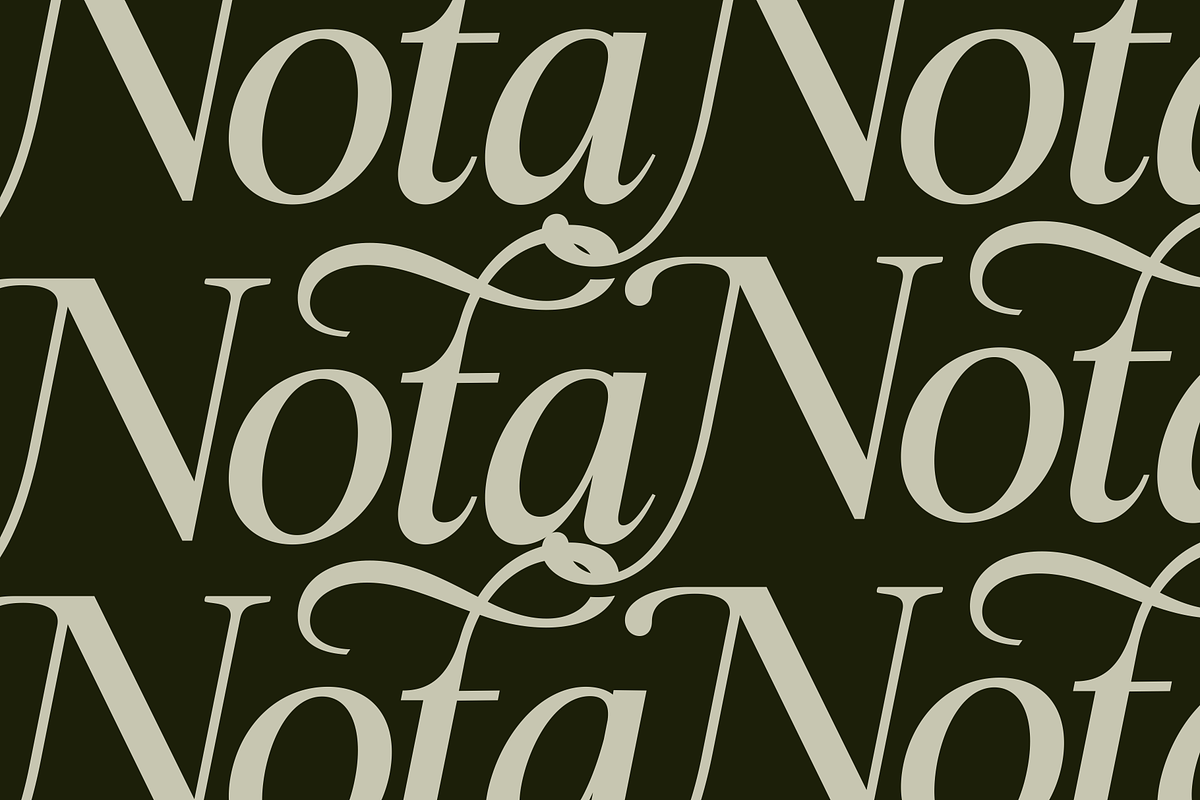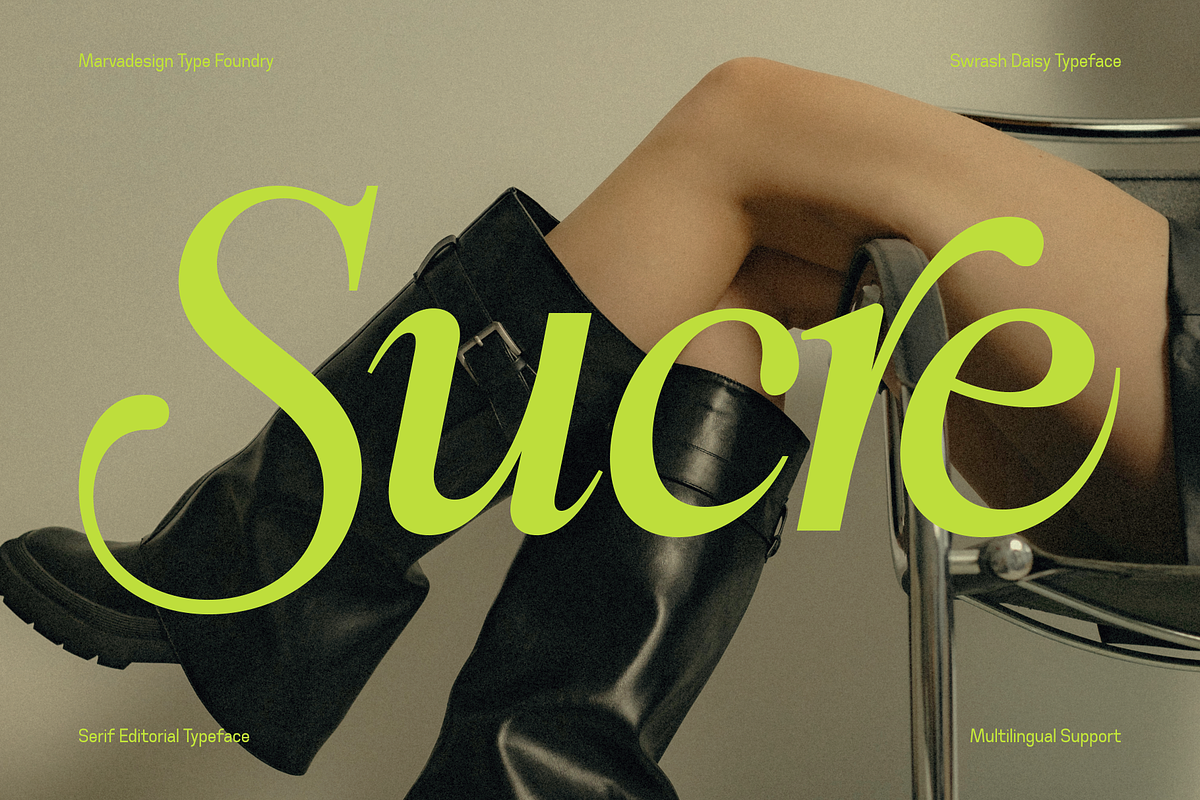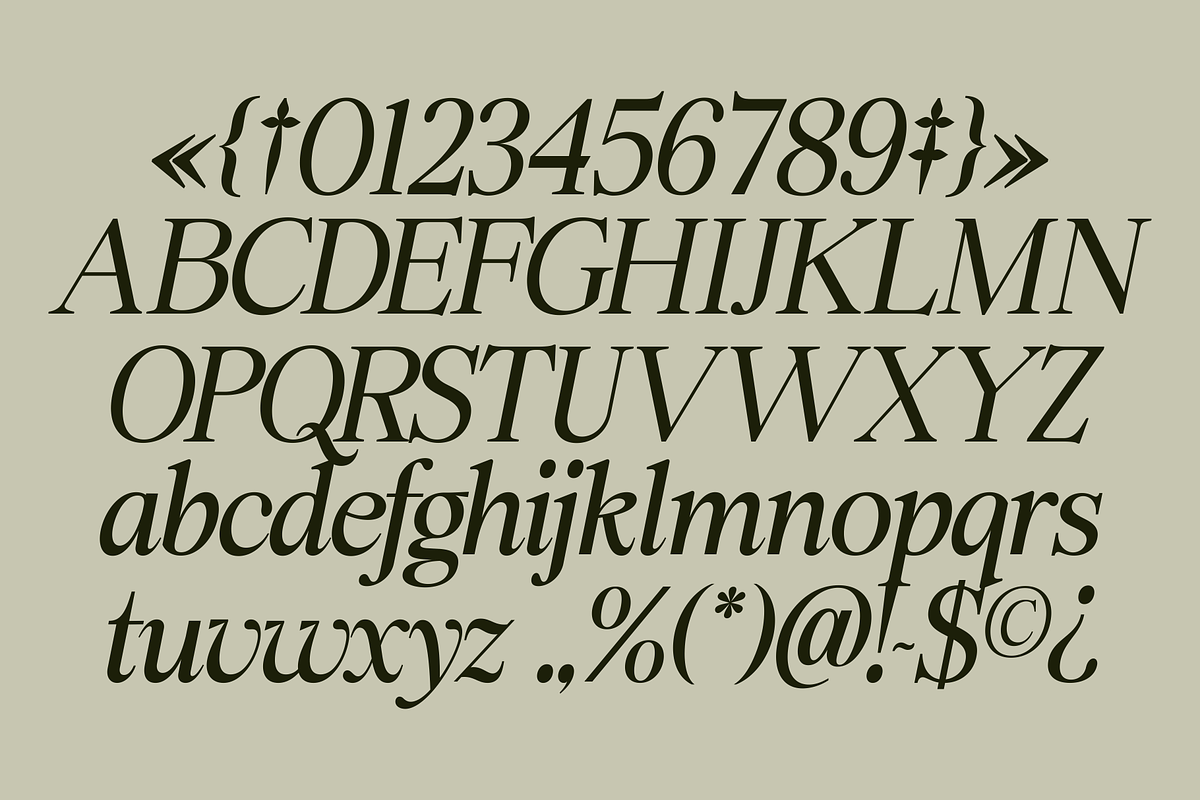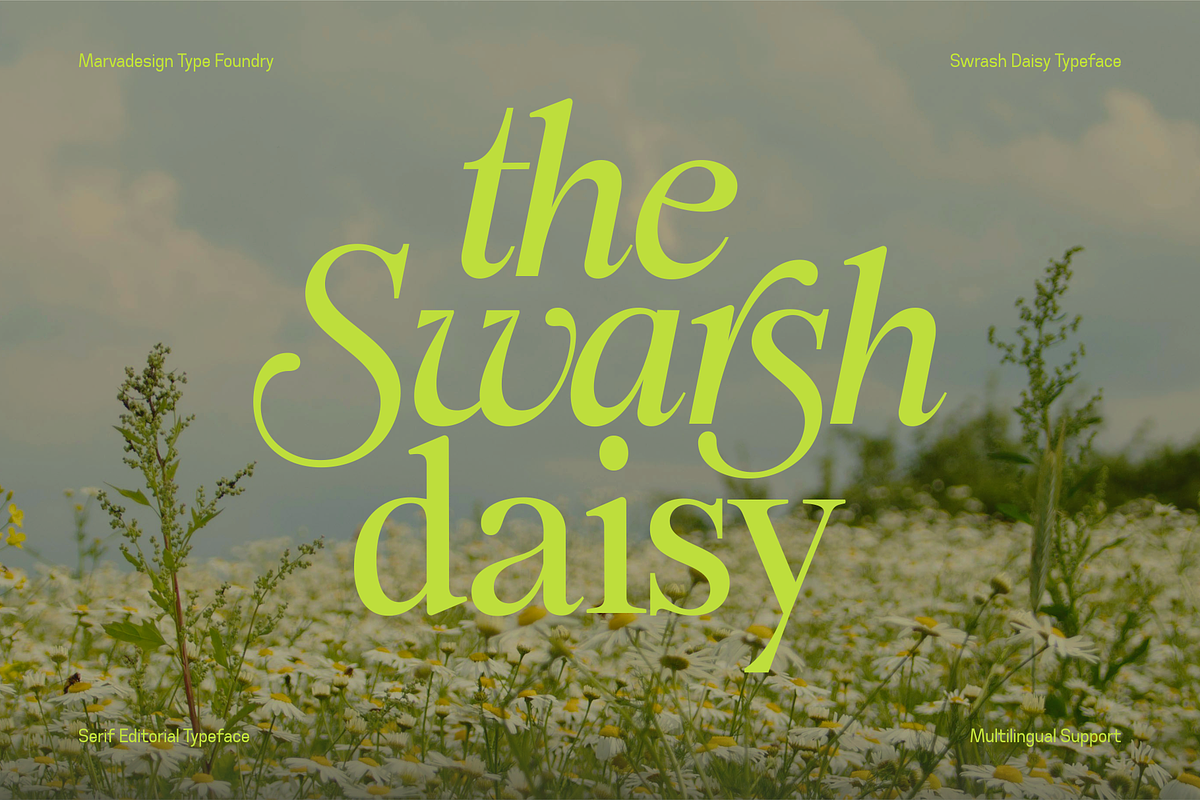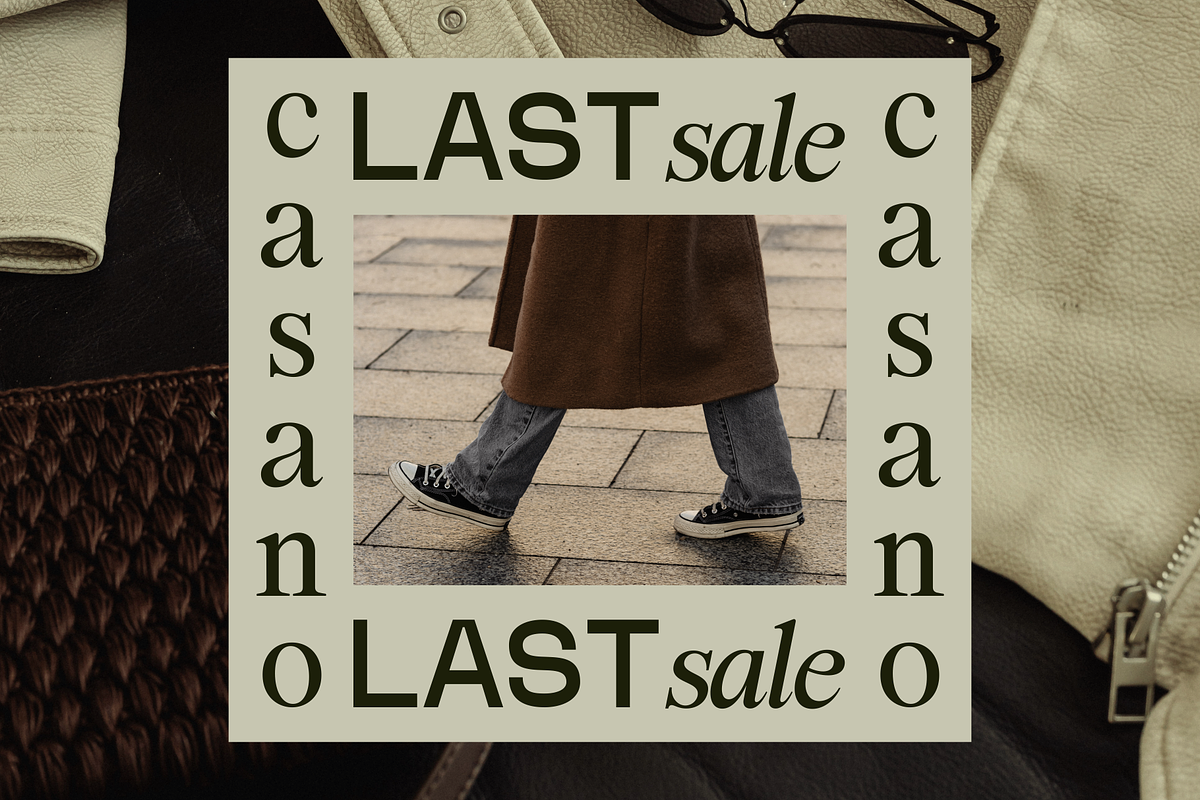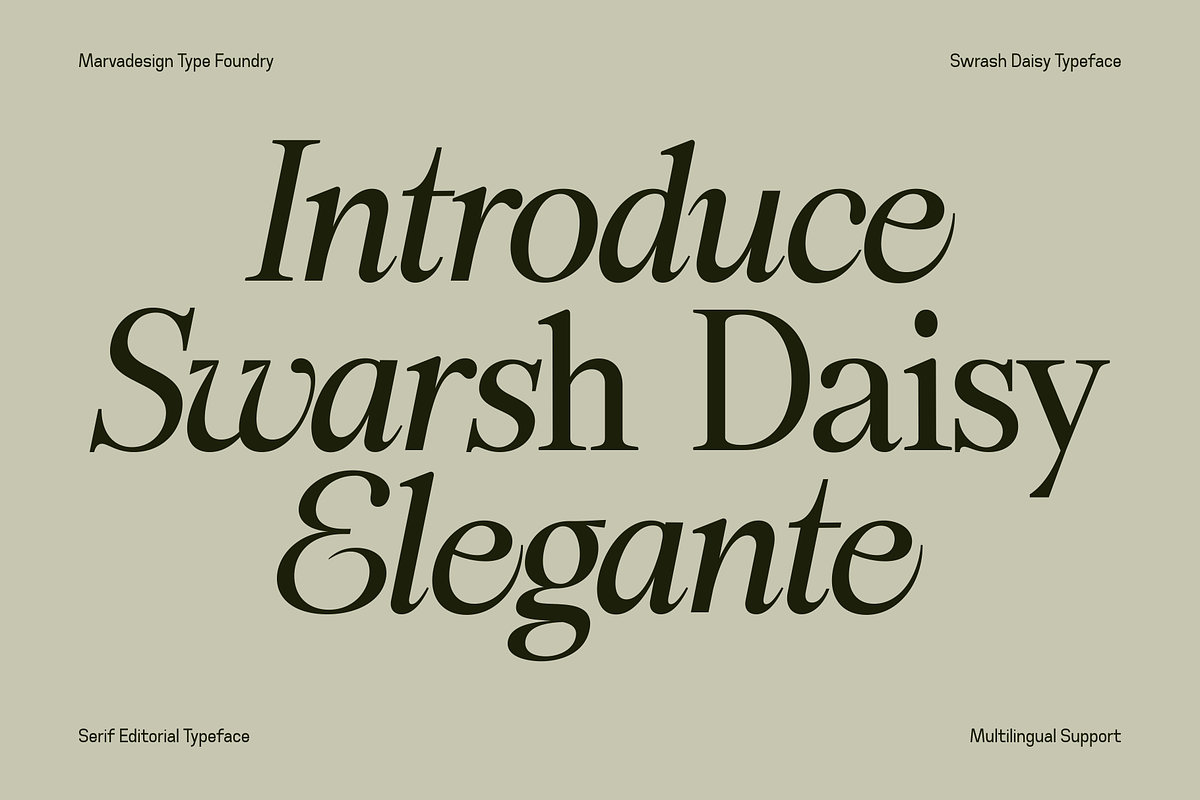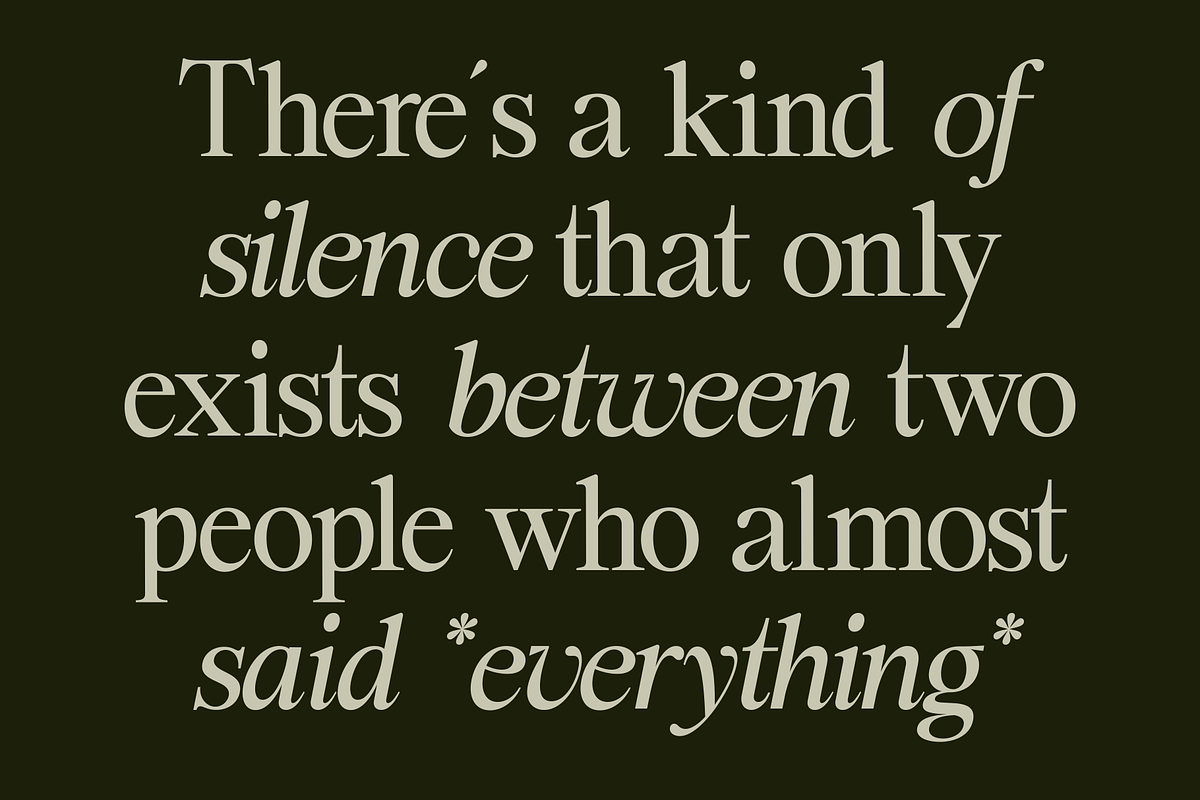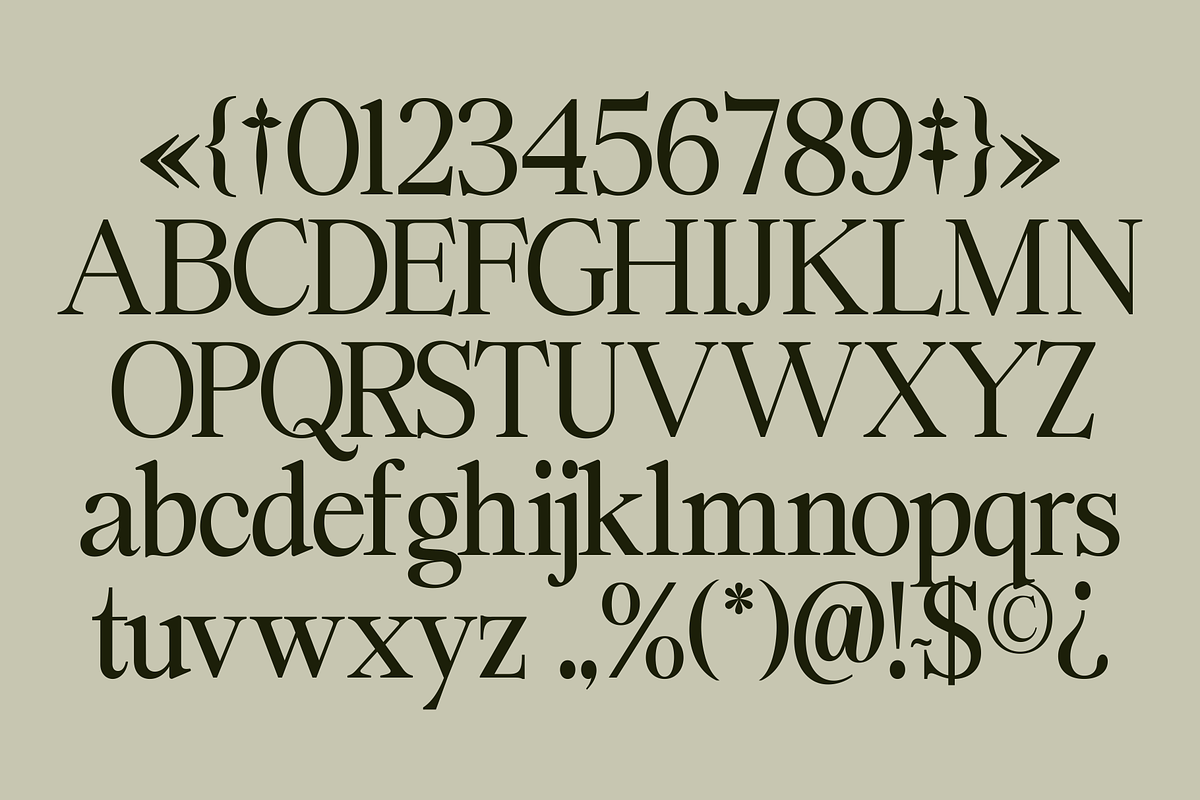
Swarsh Daisy - Elegant Serif Display
The Swarsh Daisy a refined and contemporary serif font characterized by its high contrast between thick and thin strokes, elegant curves, and distinctive swash details. It blends classical serif elements with a modern, editorial flair—perfectly suited for use in fashion branding, magazine layouts, packaging, and artistic expressions. The font includes both regular and italic styles, each designed with thoughtful attention to rhythm and movement, enhancing the visual flow of the text. The italic characters, in particular, stand out with graceful, calligraphy-inspired forms that convey emotion and sophistication. The overall structure of the typeface maintains strong vertical stress, crisp serifs, and smooth transitions between letterforms, offering a harmonious balance between readability and ornamental appeal. Additional features such as stylistic alternates and multilingual support make it versatile for global and expressive design needs.